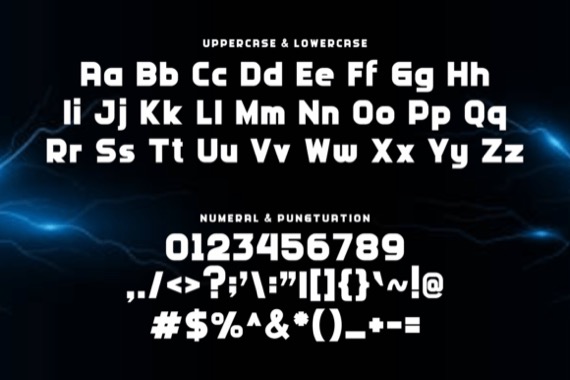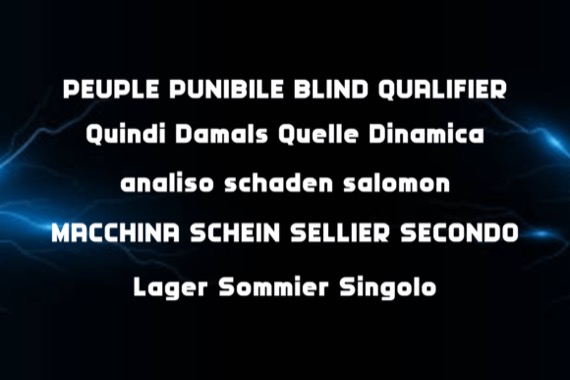
Introducing modern old Grenid is a classic display font from Lelevien, perfectly suited on for branding, name cards, posters, logos, magazine, covers, banners, t-shirt and headers, or even large-scale artwork and so much more!
Grenid Display Font
Designer, Publisher: Lelevien